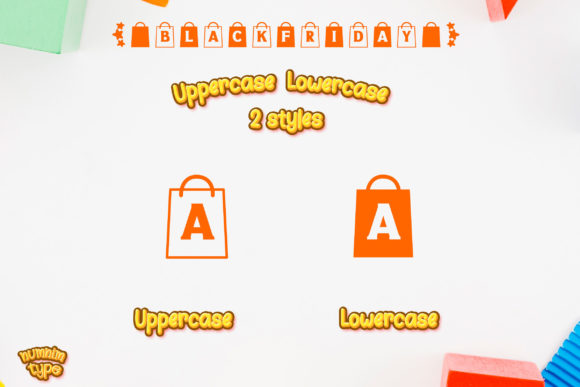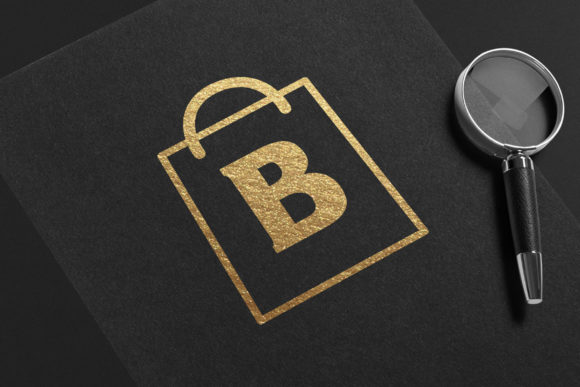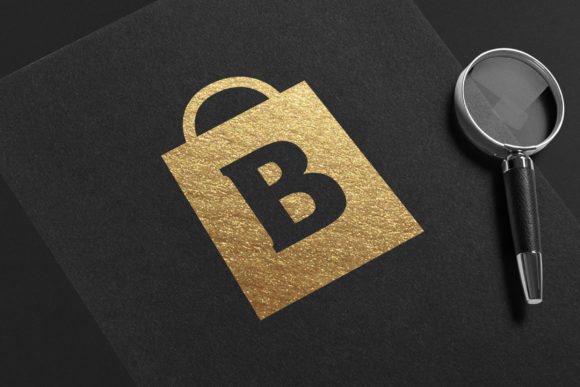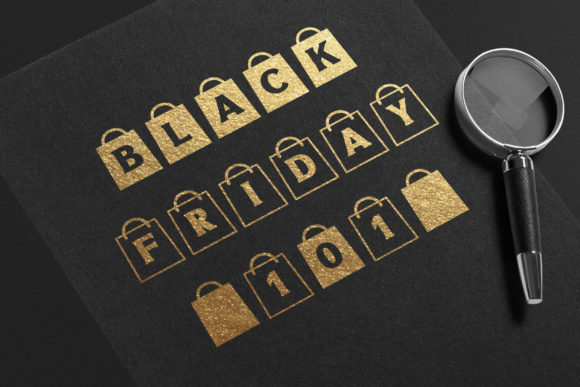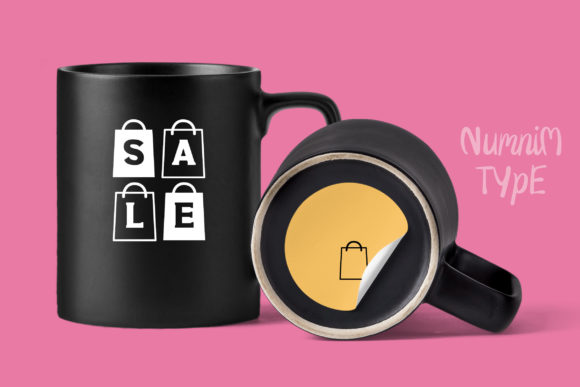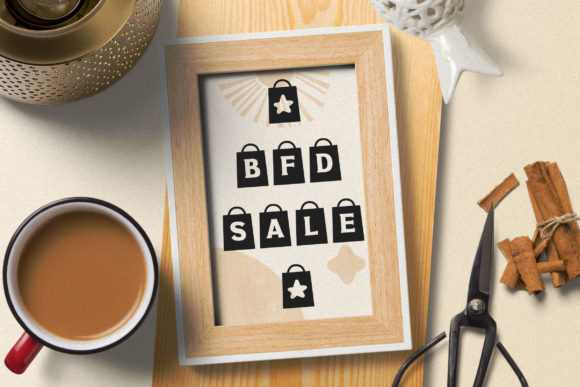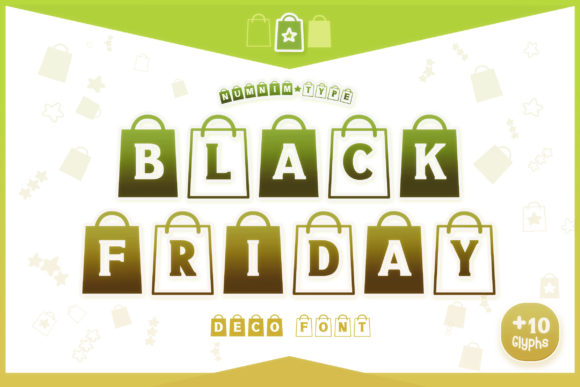
Introducing Black Friday Font: The Ultimate Decorative Font for Your Holiday Designs
Are you looking for a font that can add a bold and playful touch to your Black Friday designs? Look no further than the Black Friday Font! This cool and uniquely designed decorative font is specifically created for Black Friday, making it the perfect addition to your holiday-themed projects. In this article, we’ll dive into the features and benefits of the Black Friday Font, and explore how you can use it to take your designs to the next level.
What is Black Friday Font?
The Black Friday Font is a decorative font designed specifically for the biggest shopping day of the year. Its characters are fun, playful, and bold, making it perfect for adding a touch of personality to your designs. Whether you’re creating social media graphics, flyers, posters, or any other type of visual content, this font is sure to make your designs stand out.
Key Features of Black Friday Font
• Unique and Decorative Design: The Black Friday Font boasts a one-of-a-kind design that’s perfect for creating eye-catching holiday-themed content.
• Fun and Playful Characters: The font features fun and playful characters that are sure to add a touch of personality to your designs.
• Bold Accent: The Black Friday Font is perfect for adding a bold accent to your designs, making it ideal for headlines, titles, and other attention-grabbing elements.
Benefits of Using Black Friday Font
So, why should you use the Black Friday Font in your designs? Here are just a few benefits:
• Adds a Touch of Personality: The Black Friday Font adds a touch of personality to your designs, making them more engaging and memorable.
• Perfect for Holiday-Themed Content: The font is specifically designed for Black Friday, making it perfect for creating holiday-themed content that’s sure to resonate with your audience.
• Versatile: The Black Friday Font can be used in a variety of design projects, from social media graphics to flyers and posters.
How to Use Black Friday Font in Your Designs
Using the Black Friday Font in your designs is easy! Here are a few tips to get you started:
• Pair it with Other Fonts: Pair the Black Friday Font with other fonts to create a unique and visually appealing design.
• Use it for Headlines and Titles: The font is perfect for headlines and titles, making it ideal for adding a bold accent to your designs.
• Experiment with Colors: Experiment with different colors to find the perfect combination that matches your brand and design style.
• Have Fun: Most importantly, have fun with the font! The Black Friday Font is designed to be playful and fun, so don’t be afraid to get creative and try new things.
The Black Friday Font is a cool and uniquely designed decorative font that’s perfect for adding a bold and playful touch to your holiday designs. With its fun and playful characters, bold accent, and ease of use, this font is sure to take your designs to the next level. Whether you’re a designer or crafter, the Black Friday Font is a must-have for any holiday-themed project. So why wait? Download the Black Friday Font today and start creating stunning designs that will leave a lasting impression on your audience!